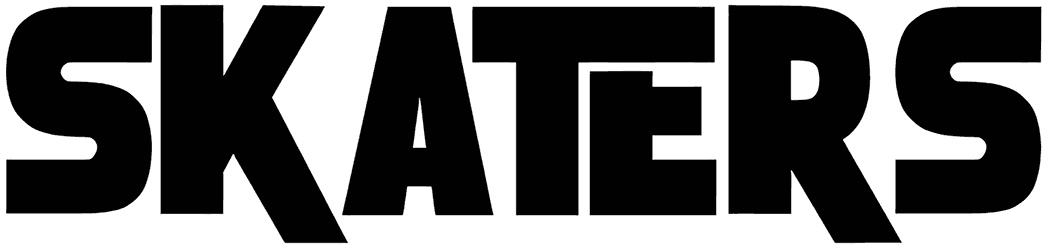
Skaters Font
Beyond your imagination, you can anticipate Skaters taking your artwork to the next step by adding a sense of modernity, futuristic drama, and professionalism. This futuristic font can be matched with any kind of graphic…
Beyond your imagination, you can anticipate Skaters taking your artwork to the next step by adding a sense of modernity, futuristic drama, and professionalism. This futuristic font can be matched with any kind of graphic content, such as posters, flyers, menus, billboards, and social media posts. As the last word, we offer you not to be too strict about not fully supporting numbers.